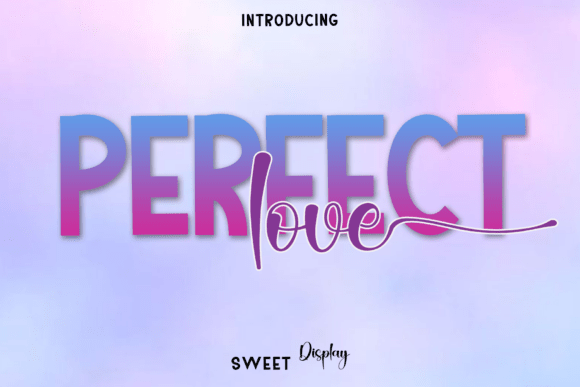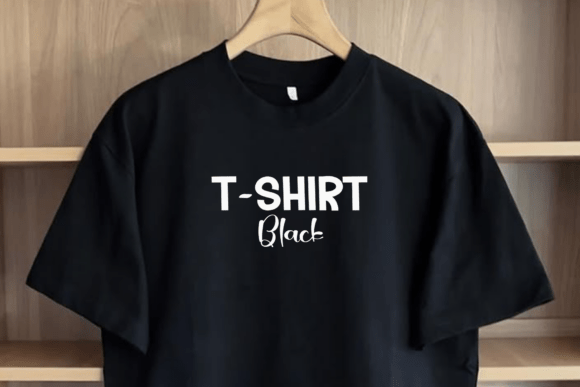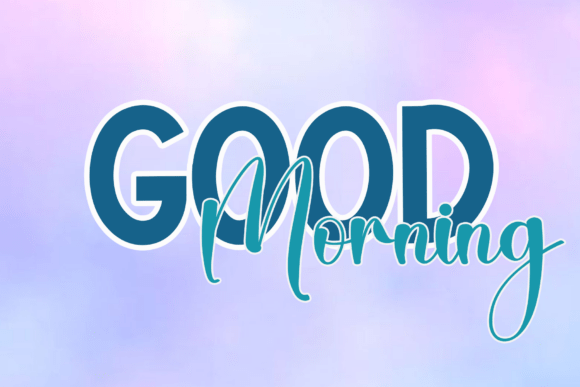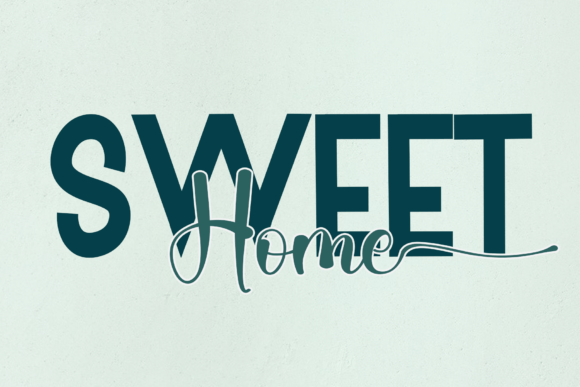
Perfect Love Duo Font
About the Perfect Love Duo Font
Add a touch of class to your work with the Perfect Love Duo Font, a truly exceptional typeface. Perfect Love is a stylish and delicate duo font (script and sans serif) suitable for a wide spectrum of applications. From greeting cards to headlines, this font will guarantee a romantic touch to each of your creations! Home Town Duo is PUA encoded which means you can access all of the glyphs and swashes with ease.
Perfect Love Duo’s script and sans-serif pairing excels in projects requiring a touch of romantic elegance. It’s ideal for wedding invitations, branding for boutiques, or short-form editorial pieces where a delicate yet sophisticated feel is desired. However, the script font’s intricacy makes it unsuitable for extended body text or UI elements where readability is paramount.
For optimal impact, pair the script with a clean, neutral sans-serif like Lato or Open Sans for body copy. Alternatively, a geometric sans-serif such as Montserrat can create a more modern contrast. If a more playful feel is desired, a rounded sans-serif could work well.
The overall personality is romantic and refined, making it a strong choice for brands focused on beauty, fashion, or luxury goods. Avoid using it in contexts requiring a bold or aggressive tone.
Perfect Love Duo Font Usage Examples
Perfect Love Duo Font Example